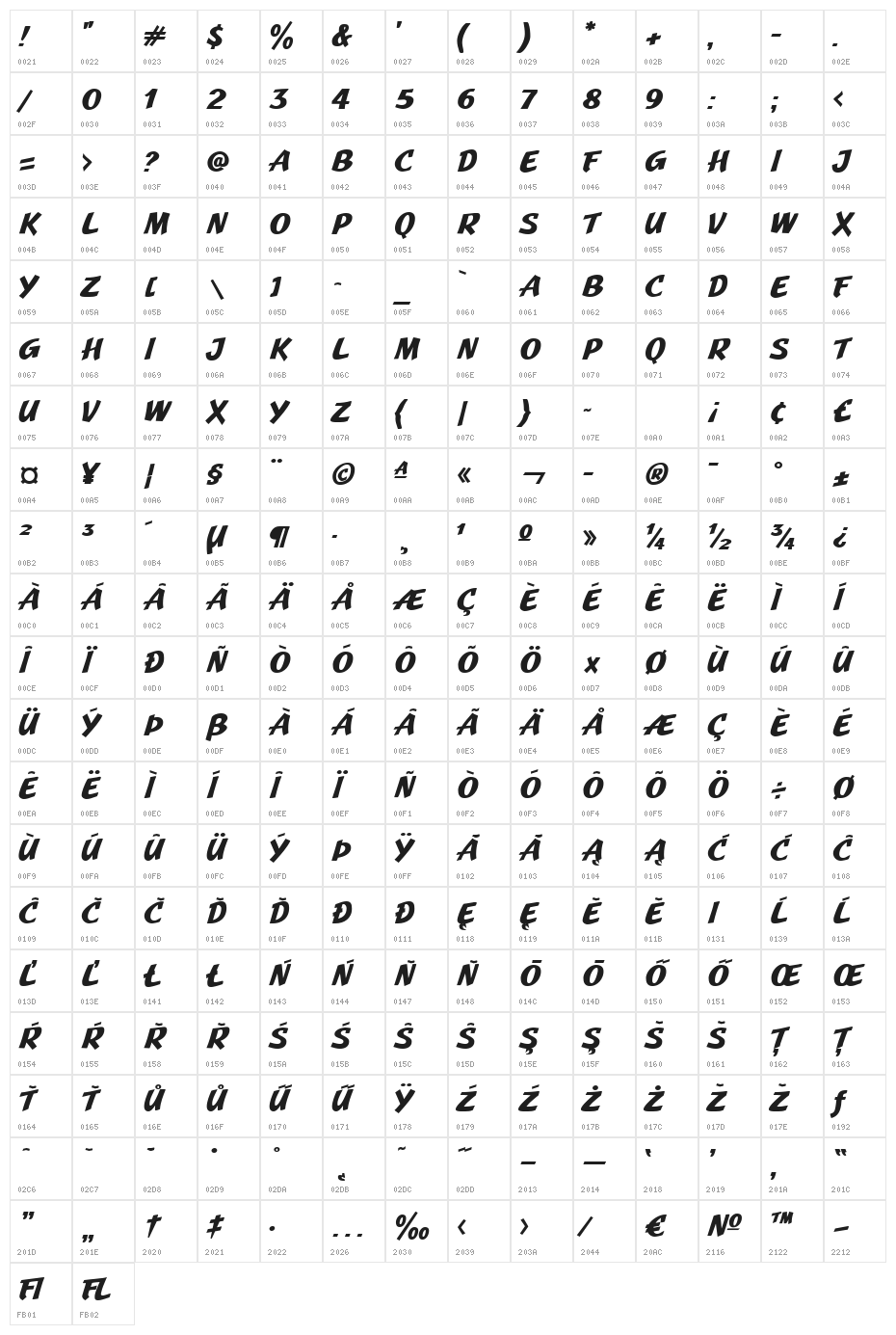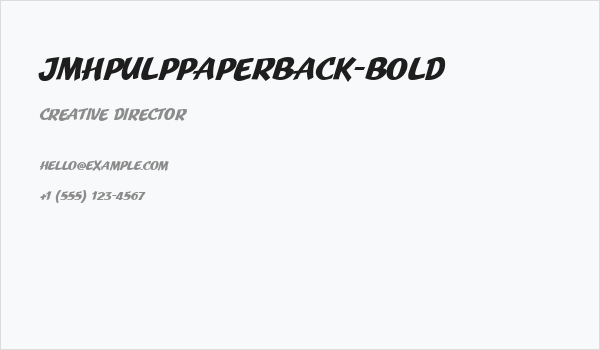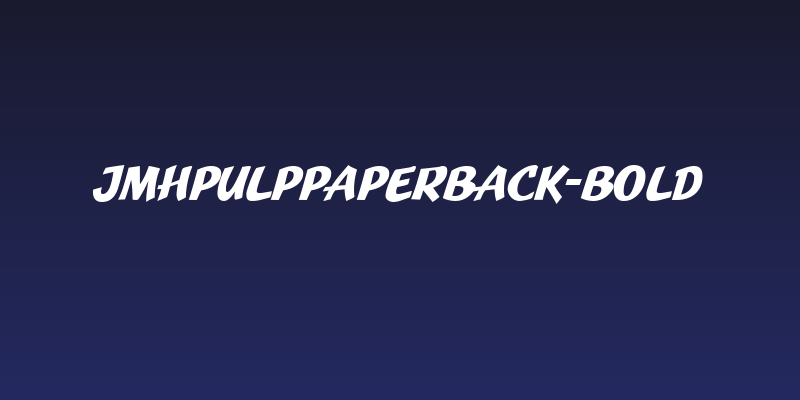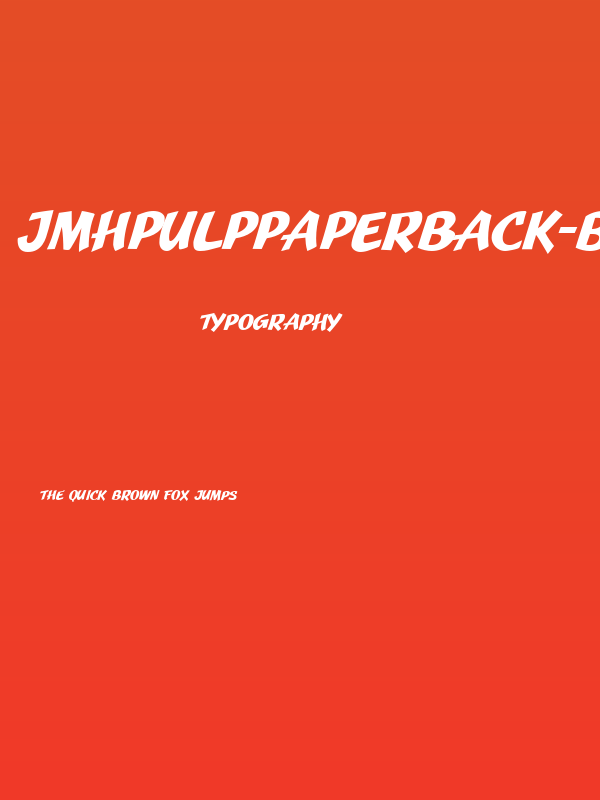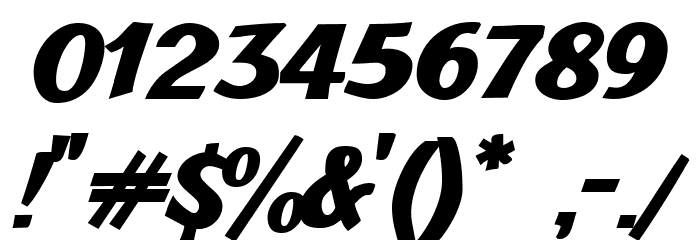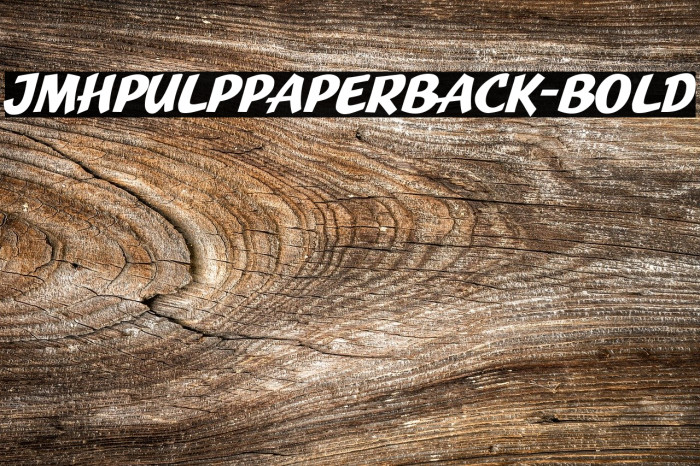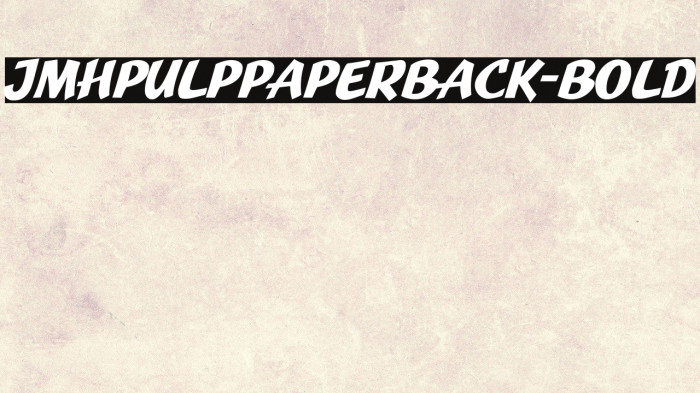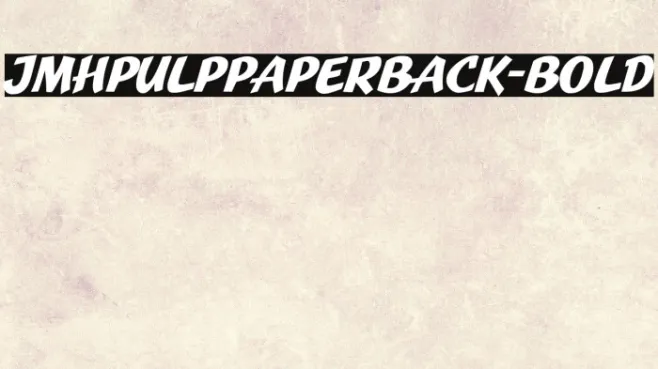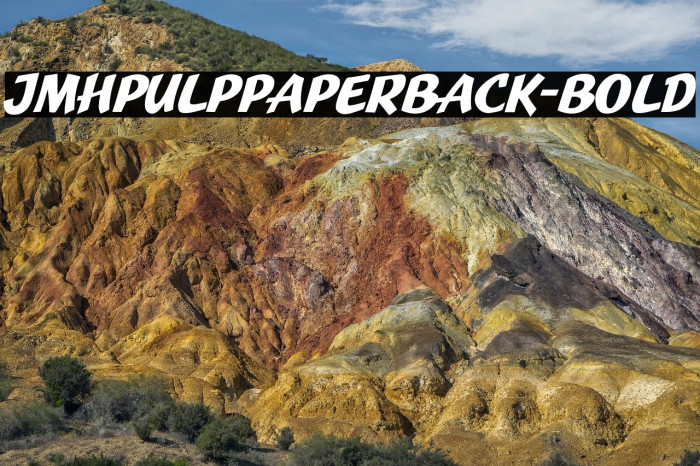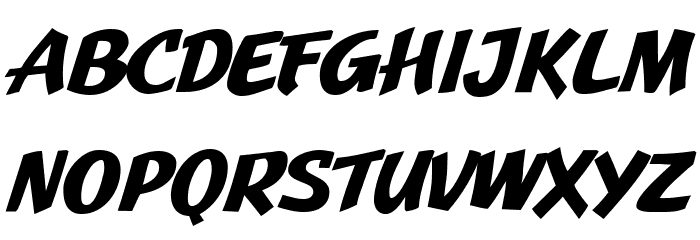
JMHPulpPaperback-Bold Font
JMHPulpPaperback-Bold Description
This bold and dynamic font features a strong, slanted design that exudes energy and movement. The characters are thick and robust, with a slight italic slant that adds a sense of urgency and flair. The uppercase and lowercase letters maintain a consistent style, with sharp angles and smooth curves that create a cohesive look. Numbers and special characters are equally bold, ensuring readability and impact. This font is ideal for projects that require a bold statement, such as headlines or branding materials. Its unique style makes it stand out, while still being legible and versatile.
| Proposed Projects | Ideal for headlines, posters, branding, and advertising materials. |